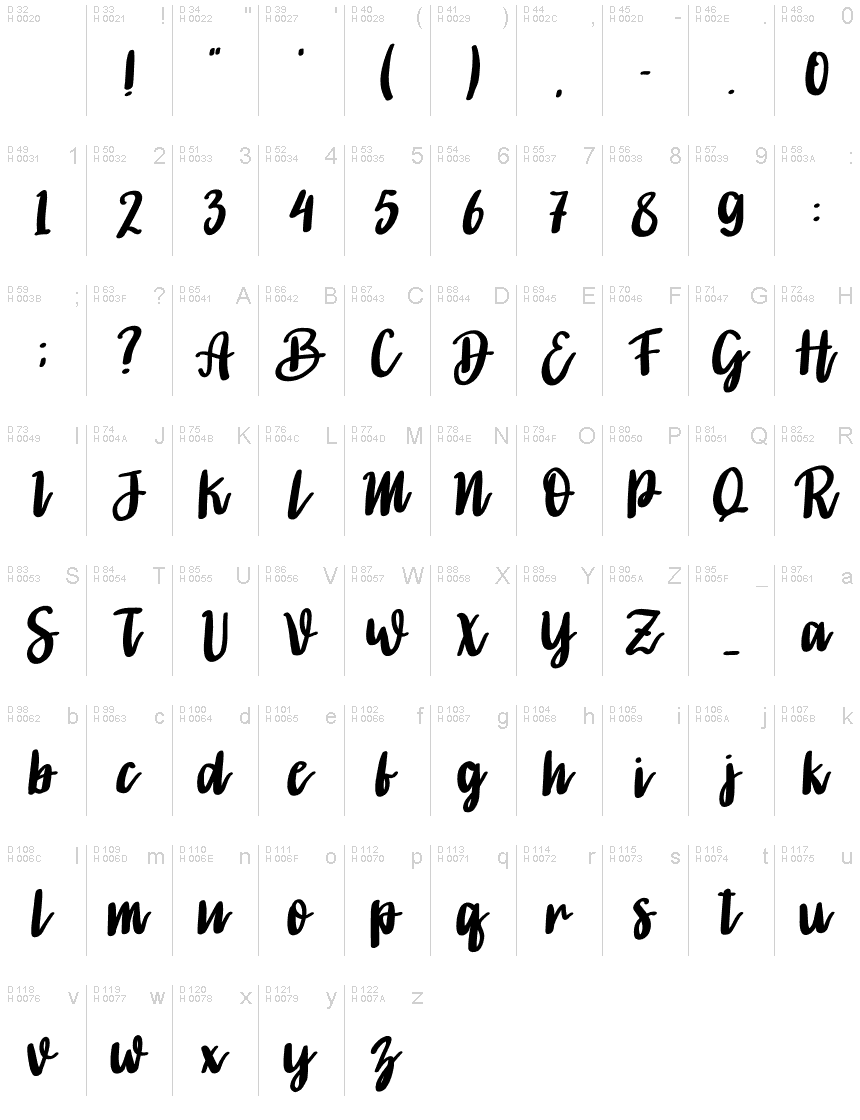
Vastika Regular
Vastika, a bold brush font designed by Letterafa Studio, exudes creativity and elegance. With its expressive strokes and remarkable weight, this font brings a striking impact to any project it graces. Perfect for eye-catching headlines in fashion magazines or captivating logos for luxury brands, Vastika adds a touch of sophistication to your designs. Its versatility extends beyond the realms of print media; imagine using it for stylish social media graphics or branding materials that demand attention. Embrace the power of Vastika and let your projects shine with its bold brush strokes.